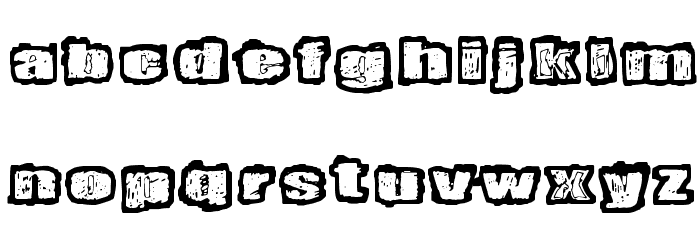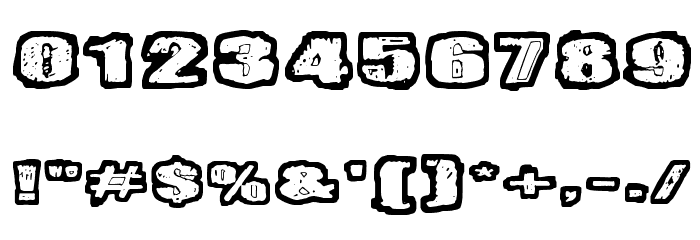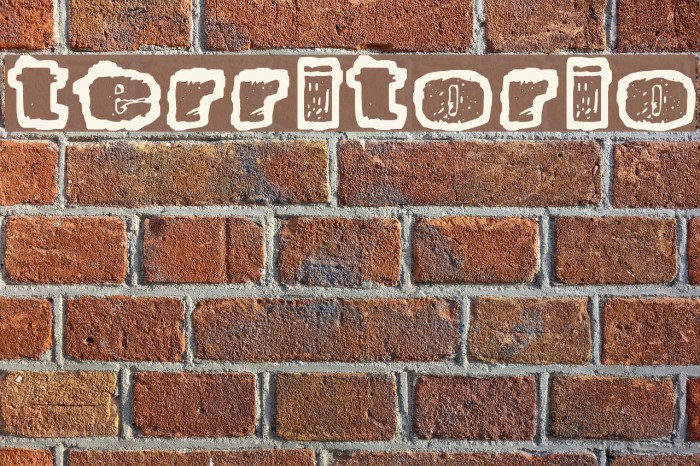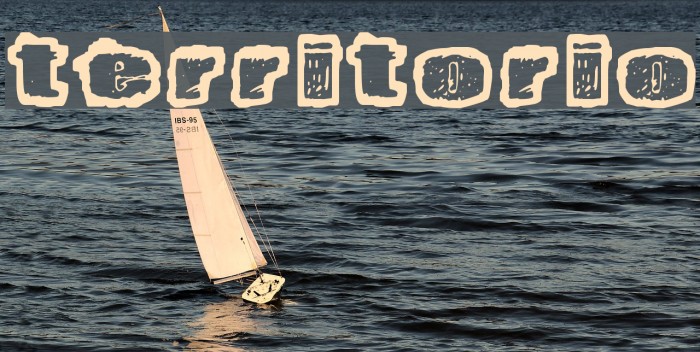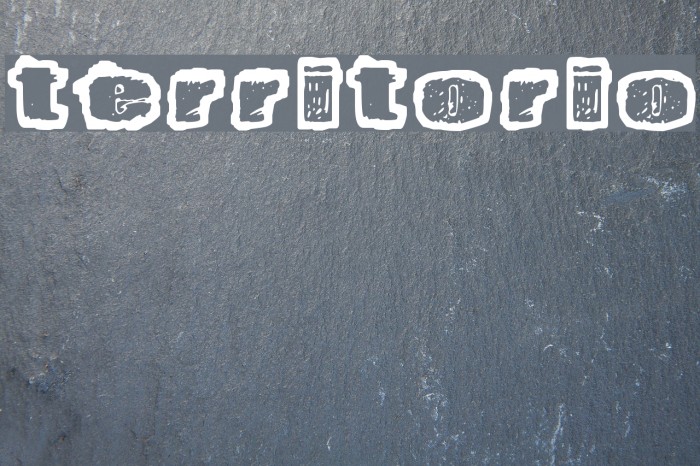
Territorio Font
This font features a bold, distressed style with a rough, textured appearance that gives it a rugged and edgy feel. The characters are outlined with a thick, uneven border, adding to the grunge aesthetic. Each letter and number appears to have a hand-drawn quality, with irregularities and imperfections that enhance its unique character. The font's boldness and distinctive style make it stand out, making it suitable for projects that require a strong visual impact. The uppercase and lowercase letters are consistent in style, maintaining the same distressed look throughout. The numbers and special characters also follow this design, ensuring a cohesive appearance across all elements.
A bold, distressed font with a rugged, textured appearance and hand-drawn quality.
- Proposed Projects: Ideal for posters, album covers, branding for edgy or alternative products, and any design needing a strong, impactful look.